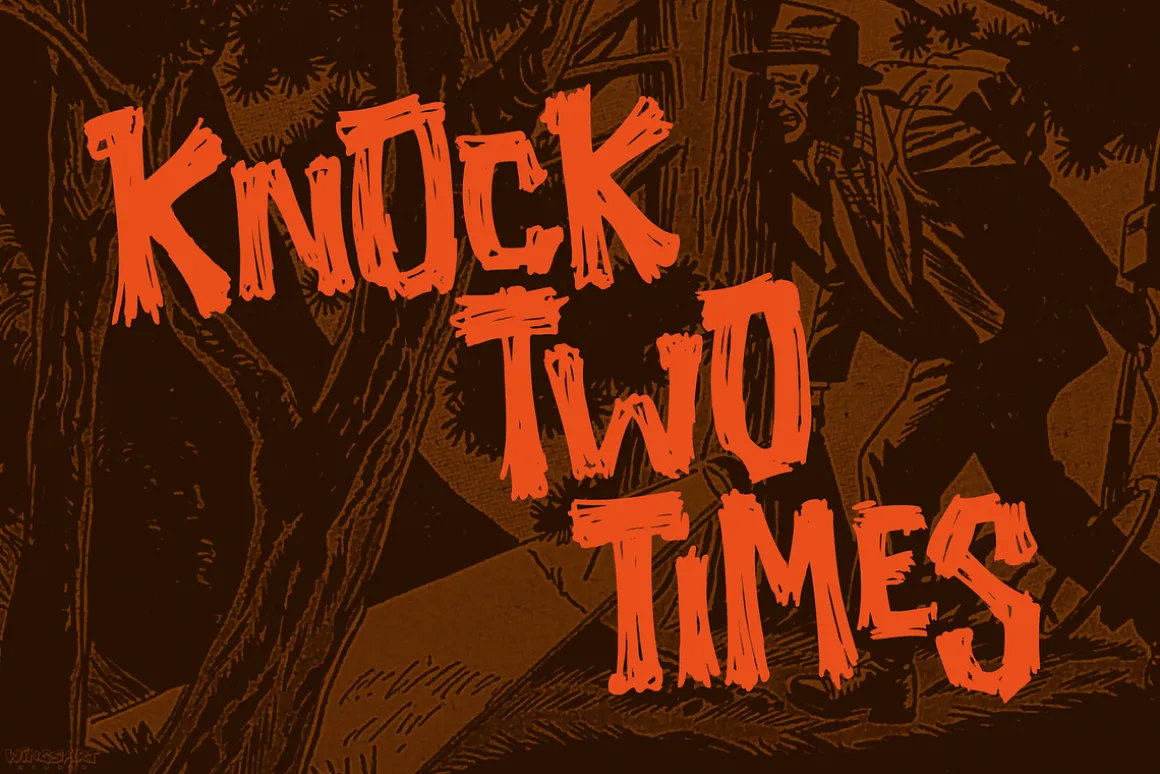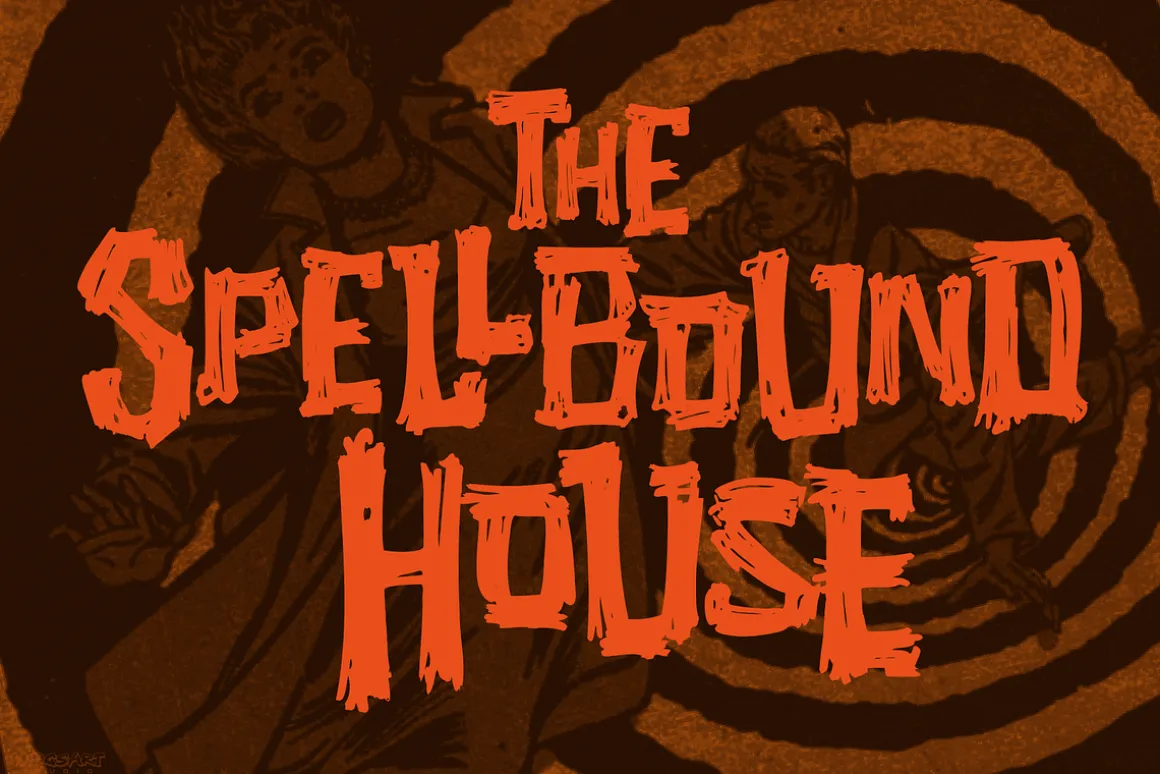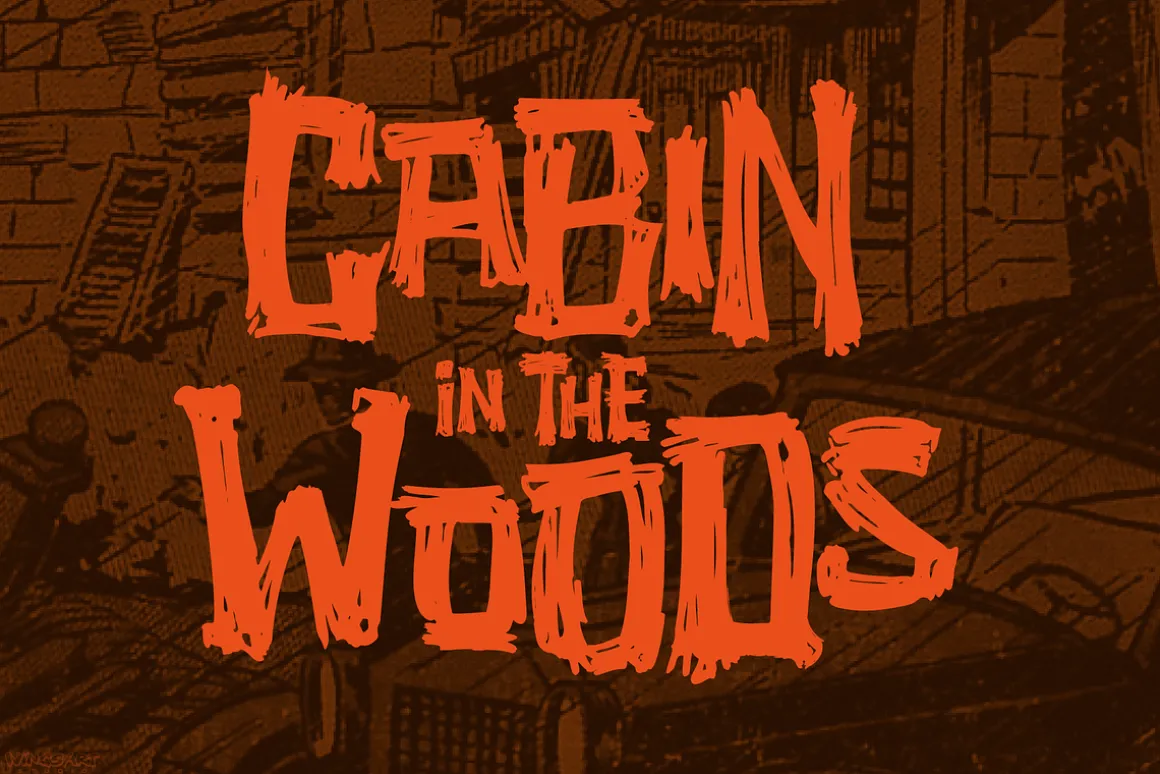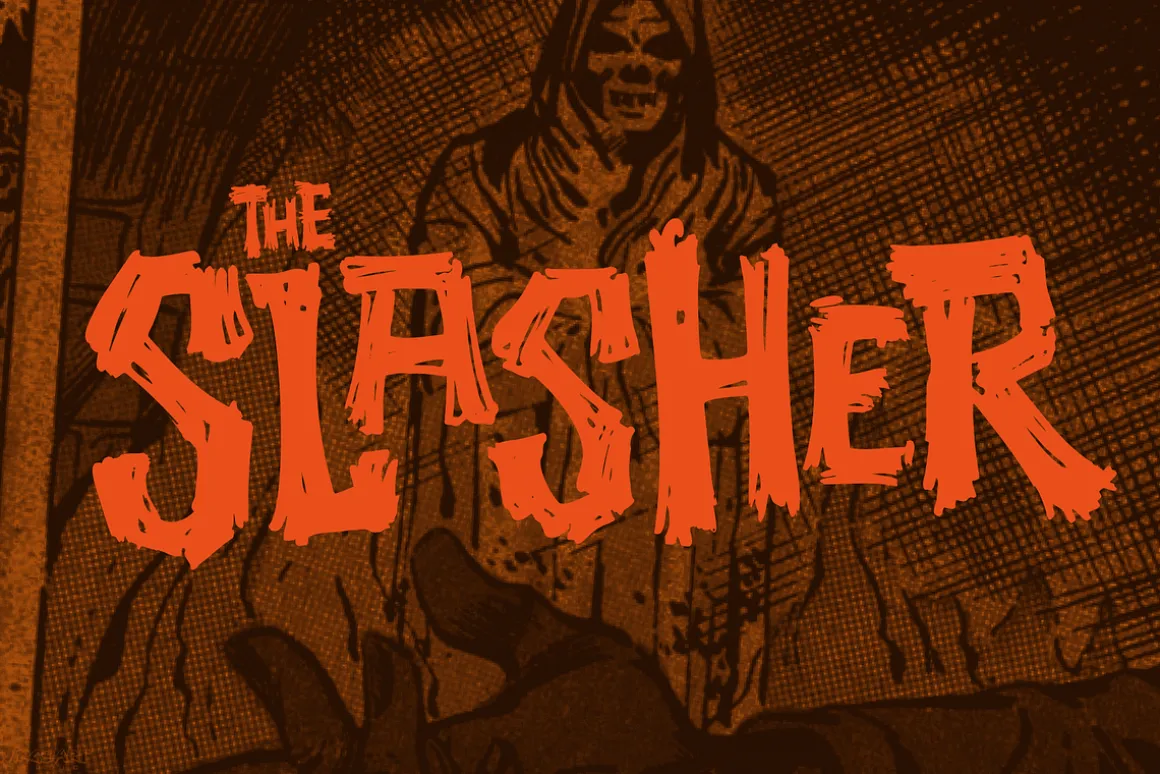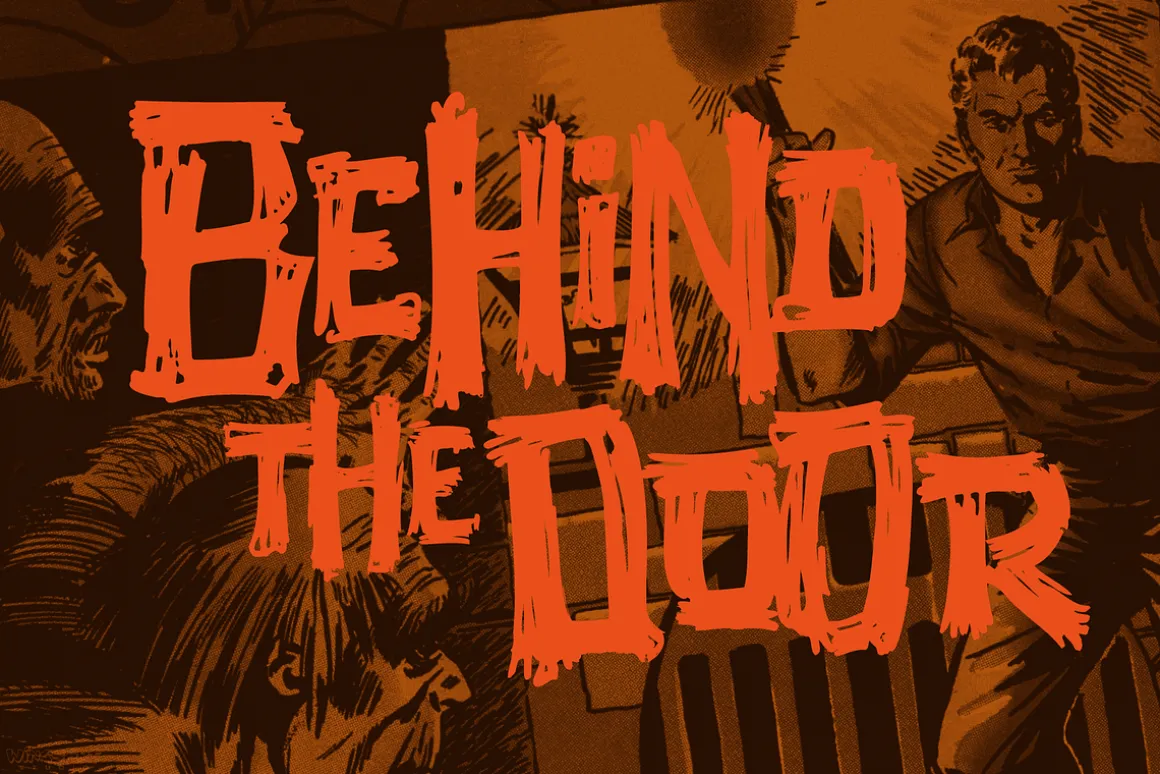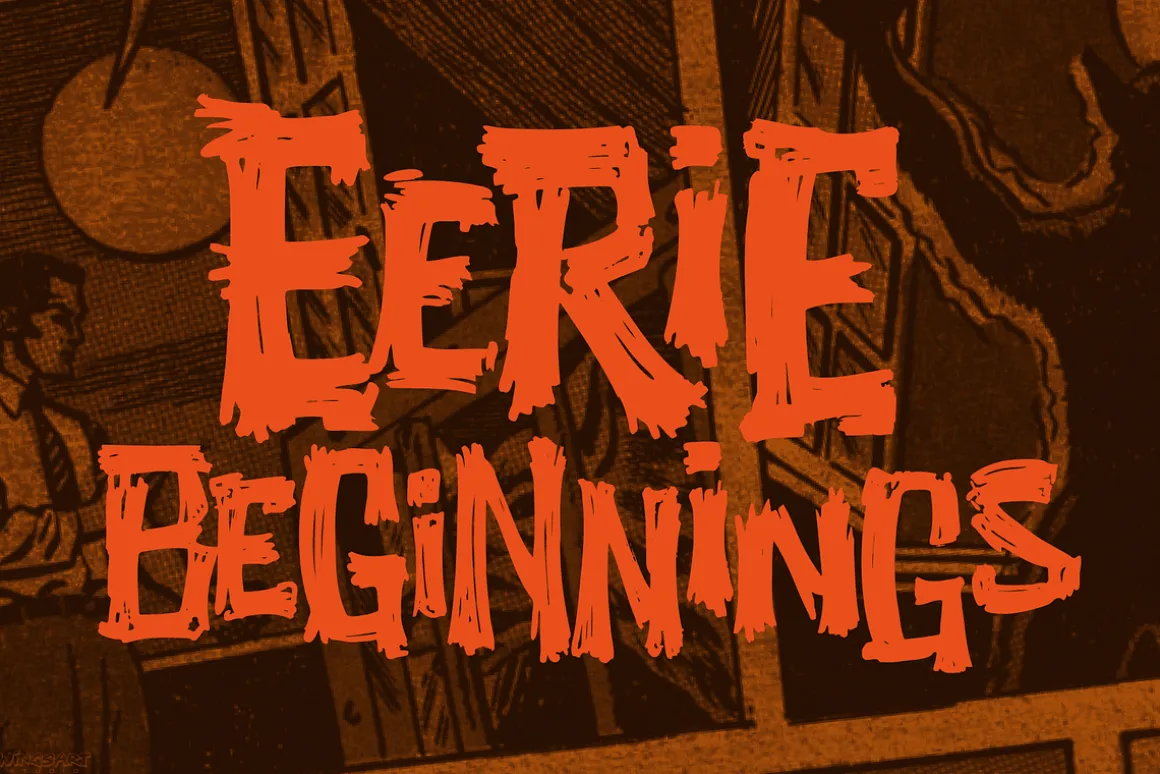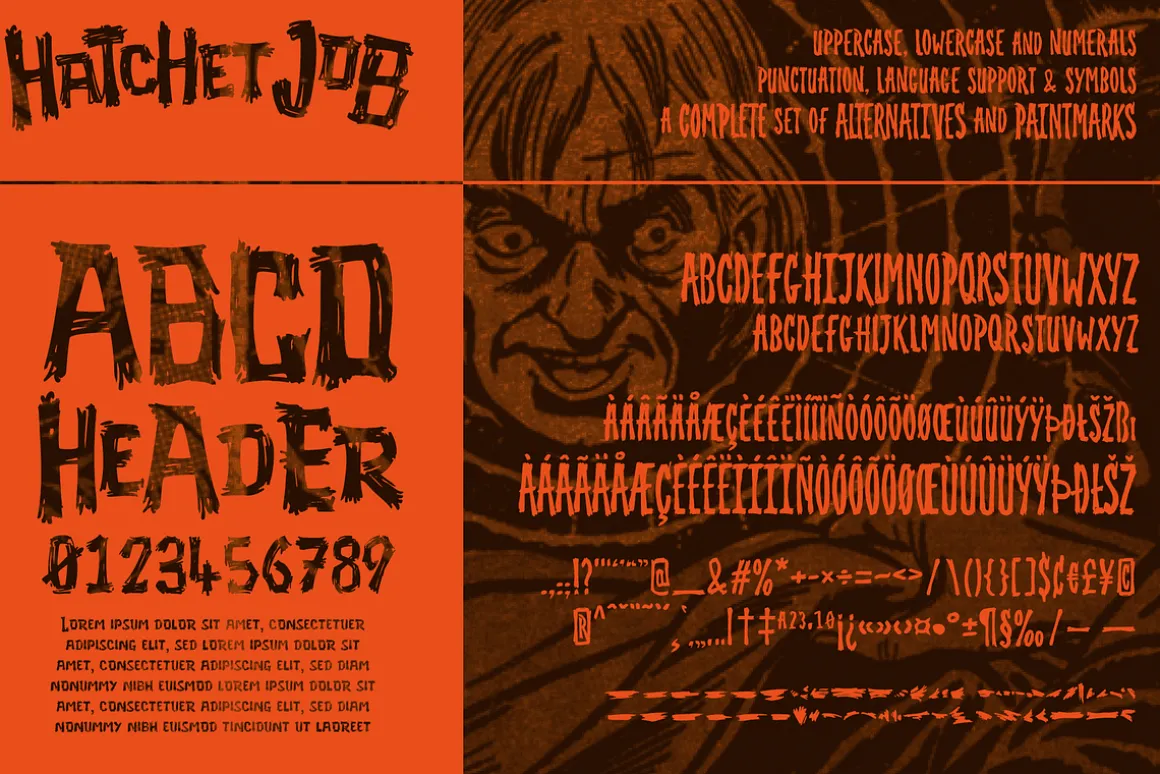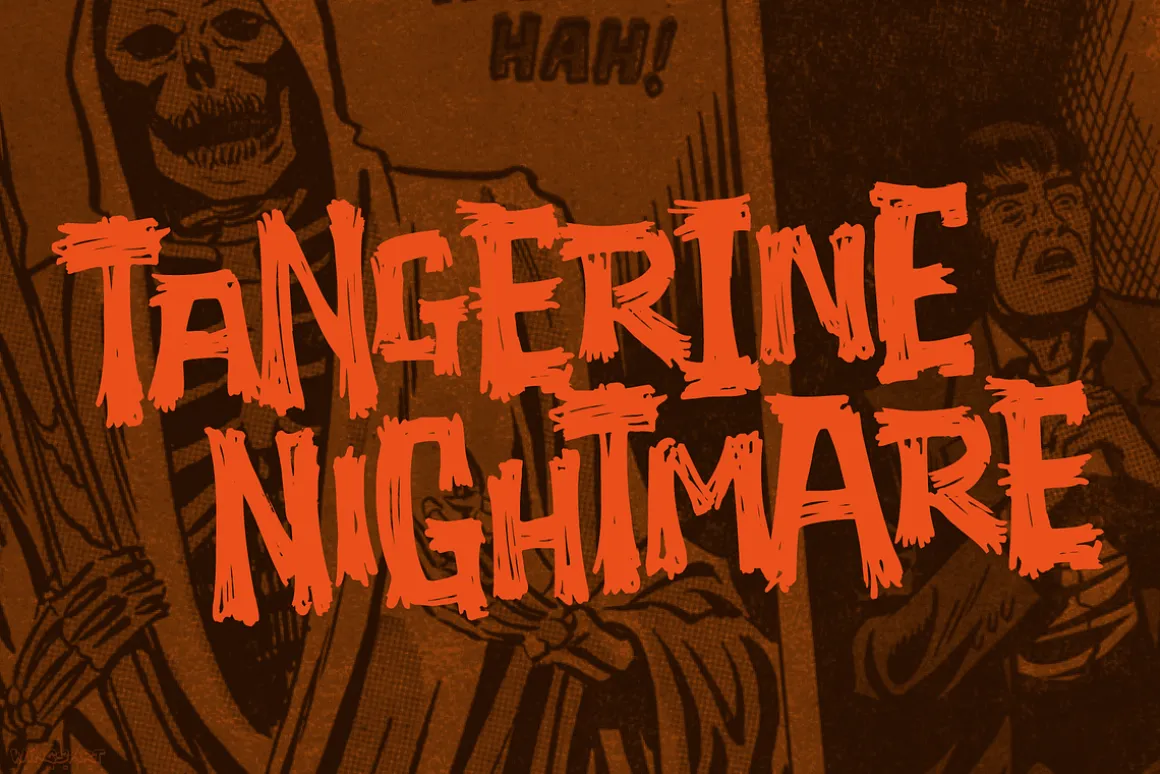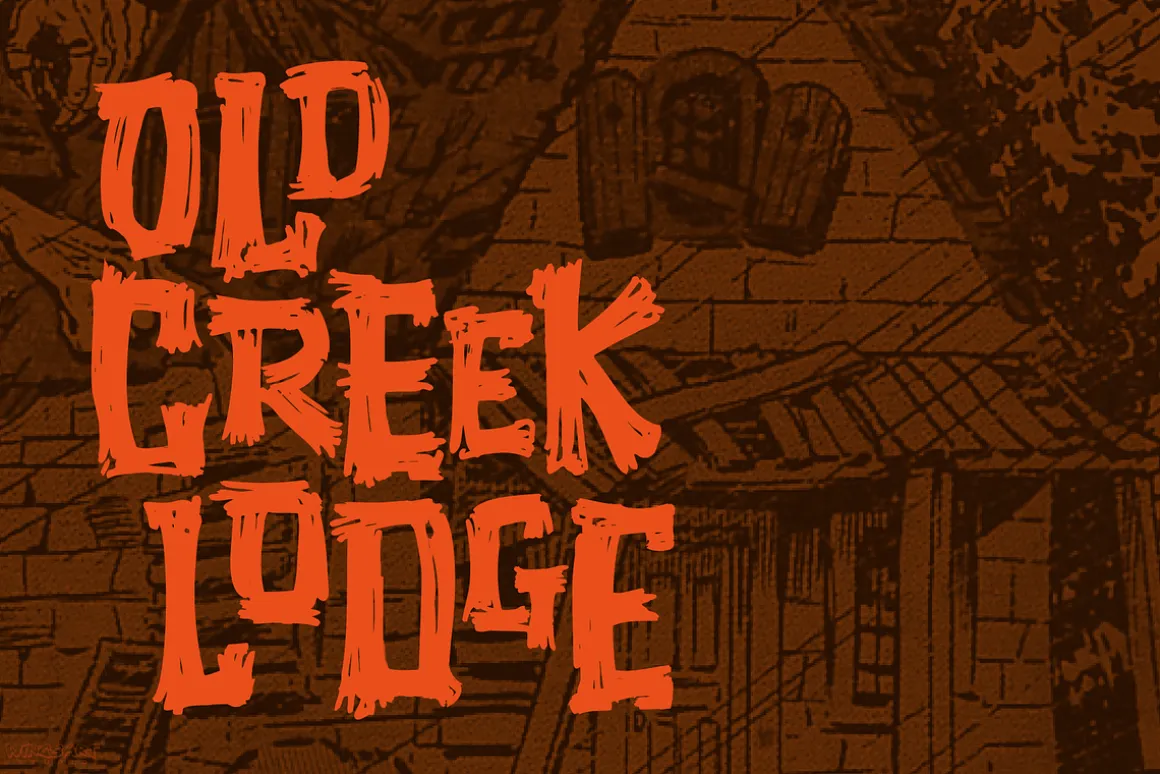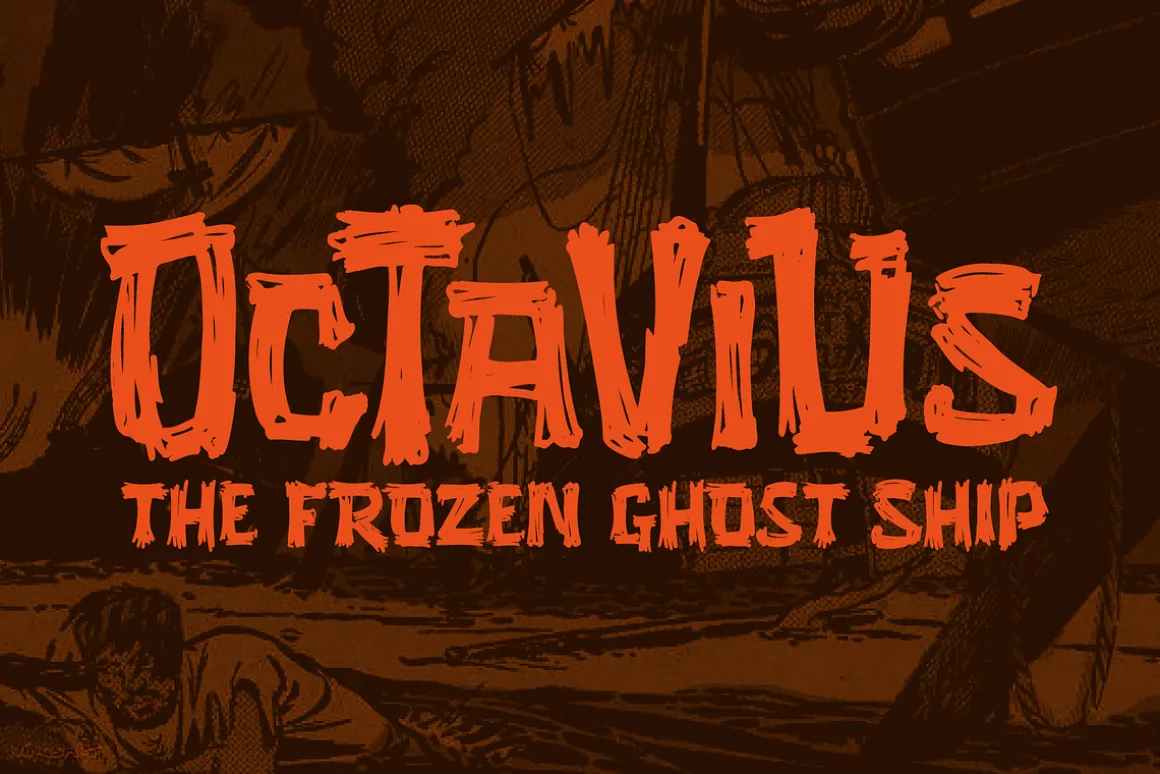
Unleashed onto an unsuspecting public this Halloween, Hatchet Job is a brush font inspired by the slasher and cabin-in-the-woods horror movies and comics typical of the 1970s and 80s.
This textured all-caps design takes its visual style from old cabins, ghost ships and axe-splintered wood that can only spell danger! With a bold brush strokes and frayed edges, it offers the tools to leave your readers nerves in tatters!
The Hatchet Job font family includes all-caps uppercase and lowercase characters, along with numerals, punctuation, symbols and language support. Also included are a complete set of alternative characters and additional paint marks, drips and splashes.
Wingsart Studio Design Tip The uppercase and lowercase characters work great when mixed in an alternating fashion, with shapes that combine to create a dynamic, un-hinged look that’s perfect for the Halloween season. Add the alternatives and paint marks into the mix and you’ll have yourself a title or header design that looks truly custom-made.